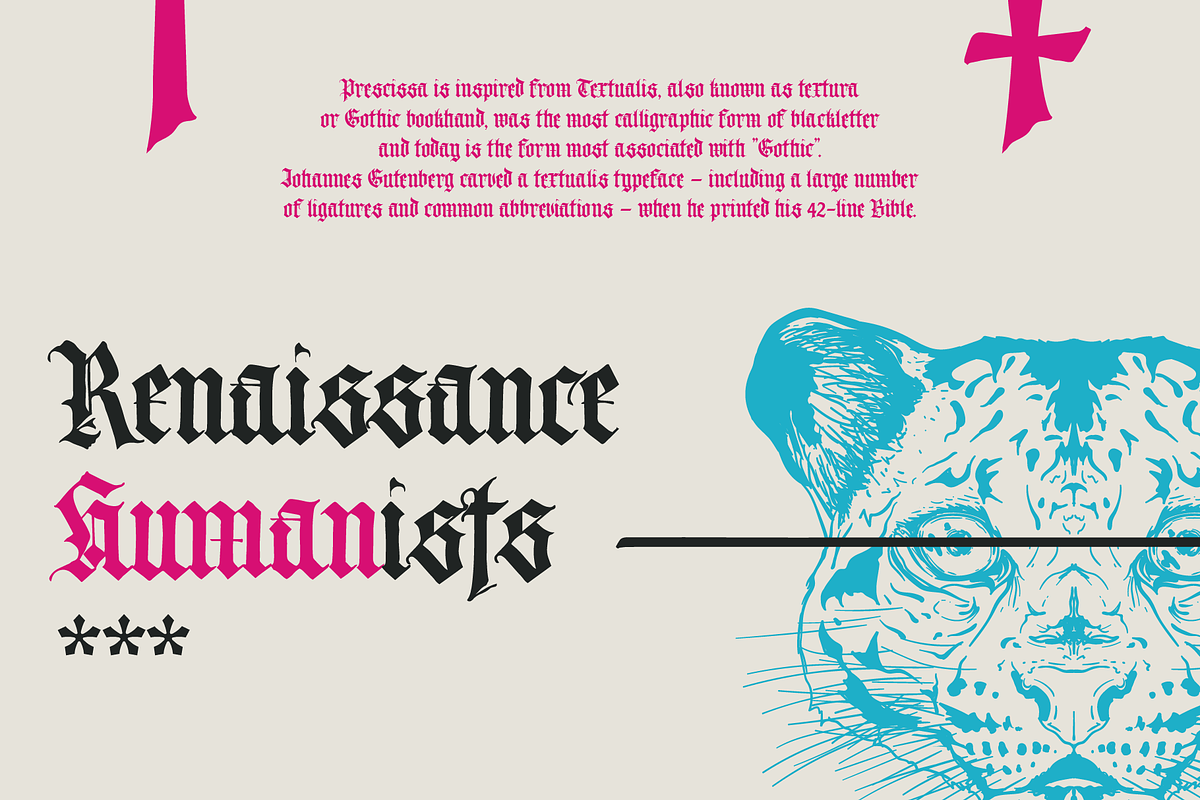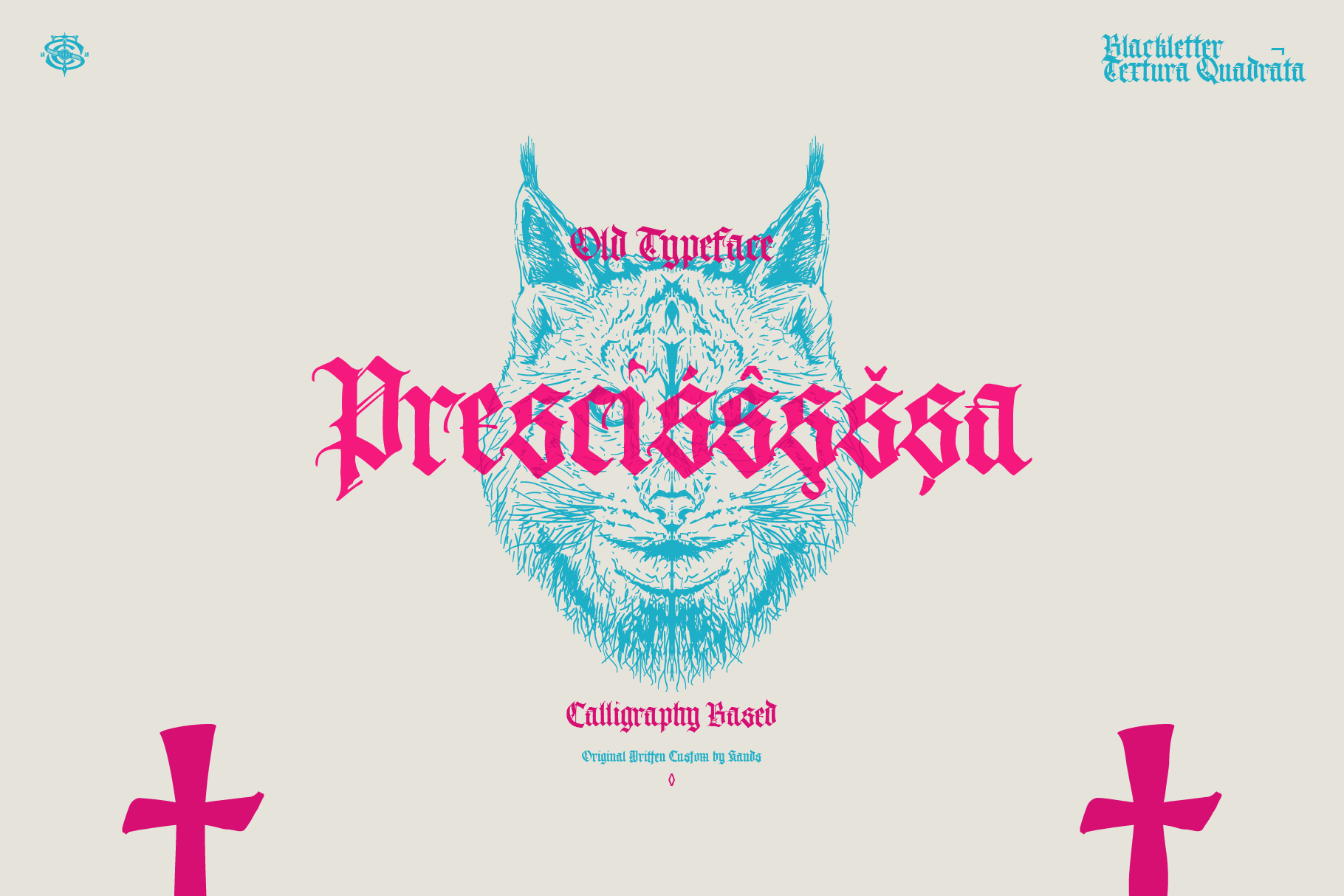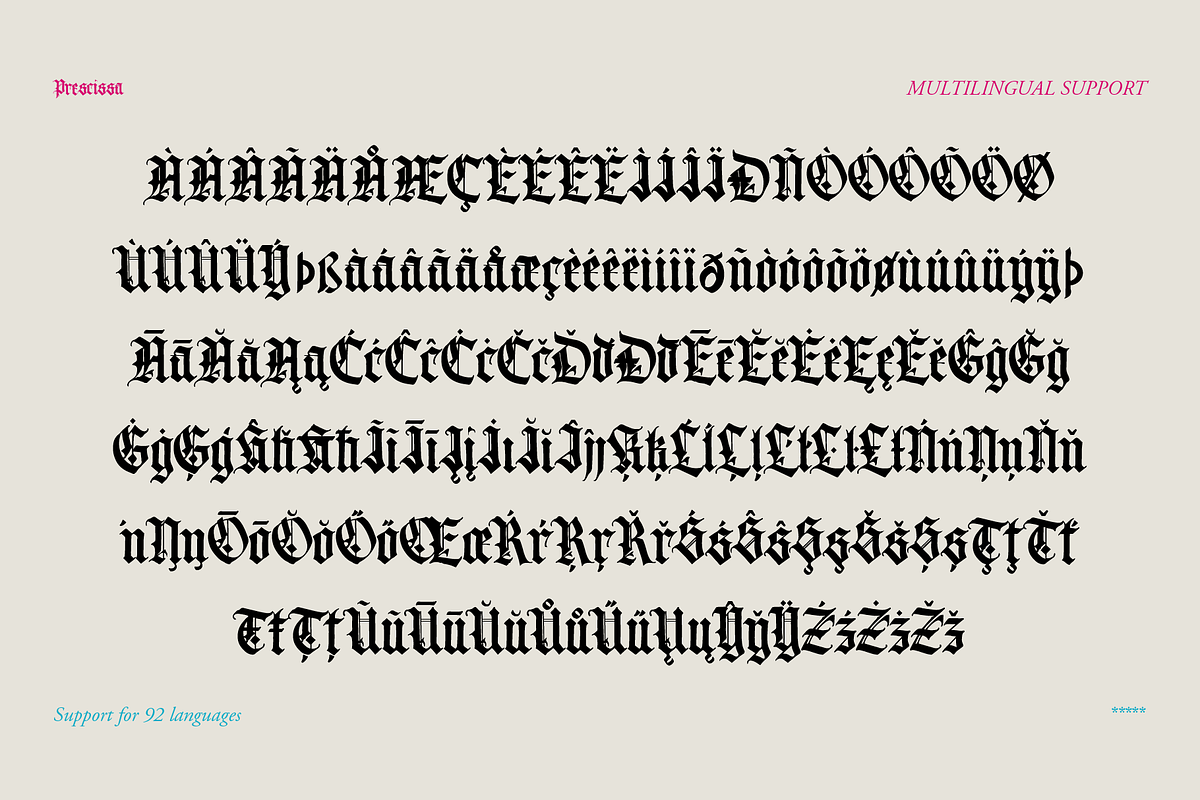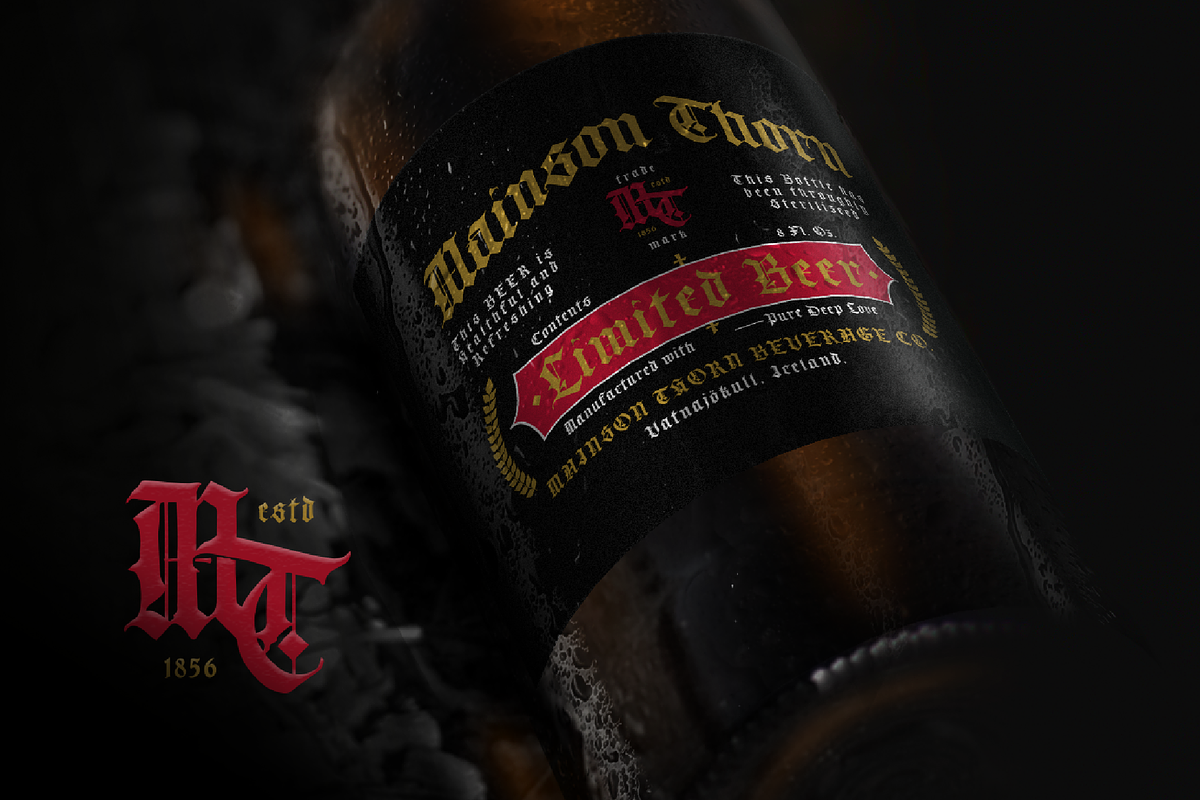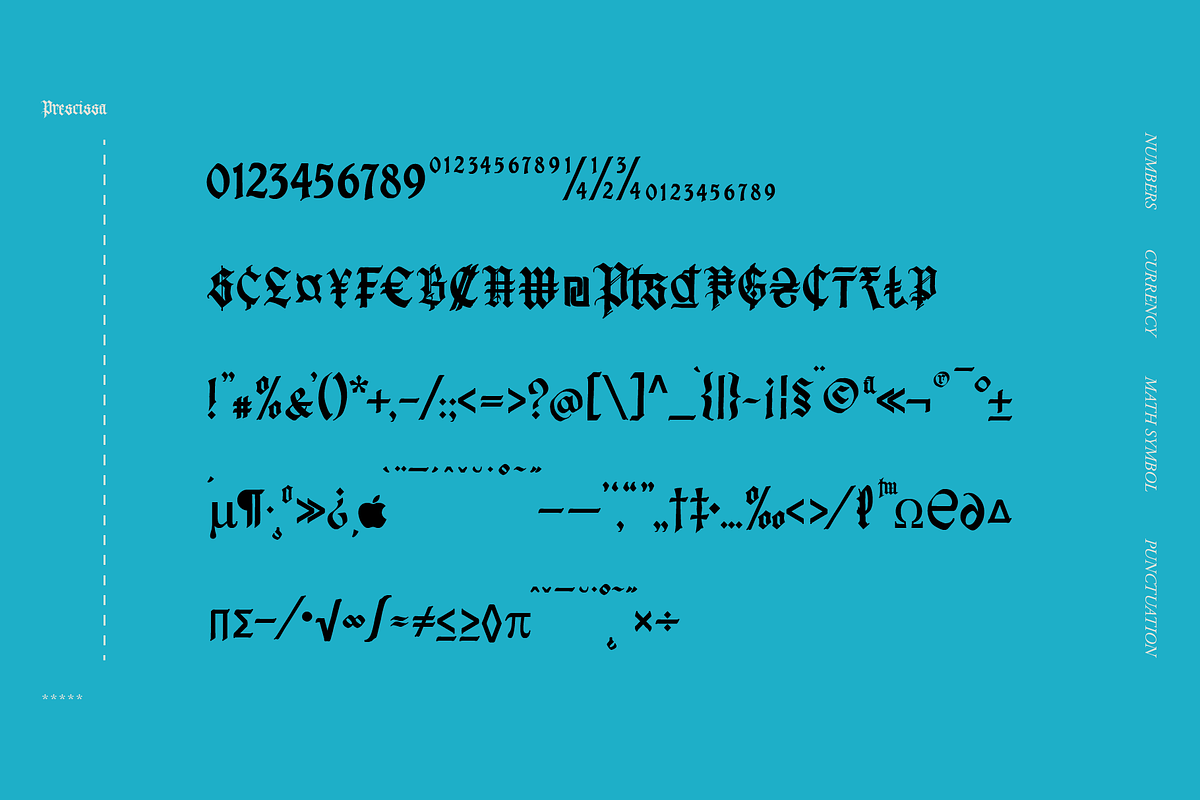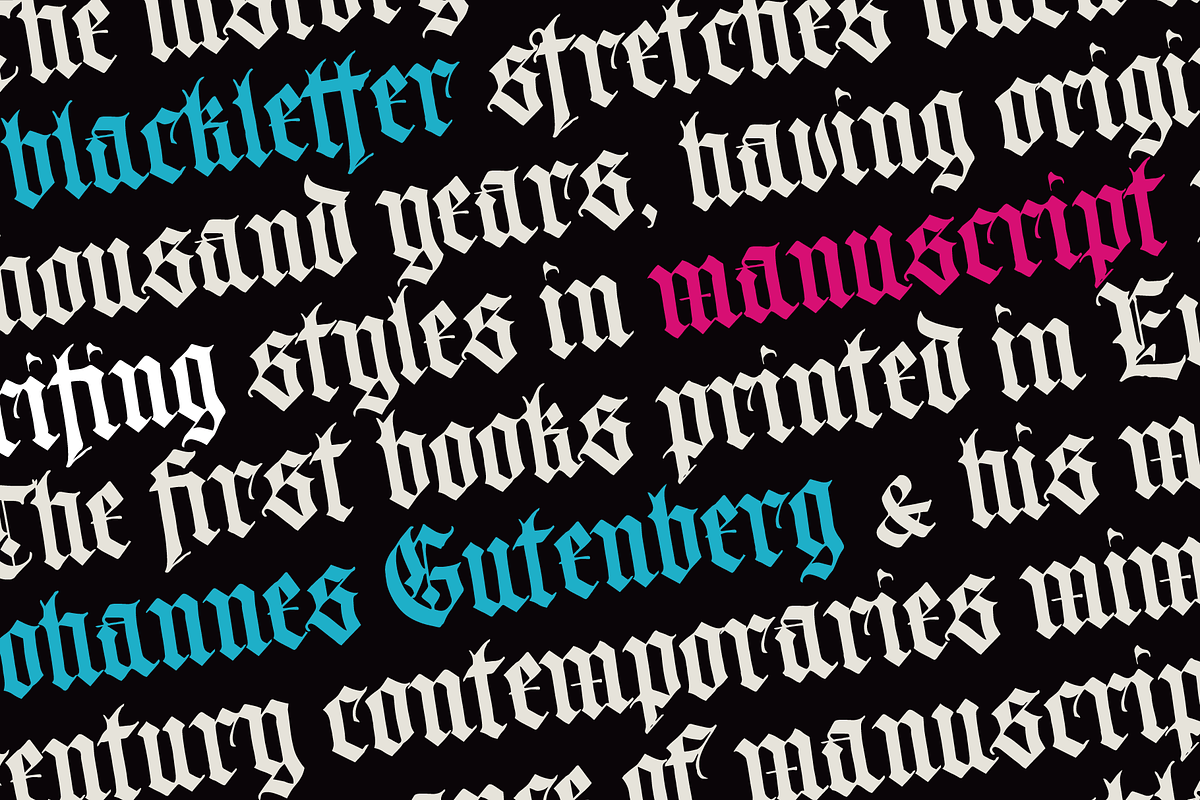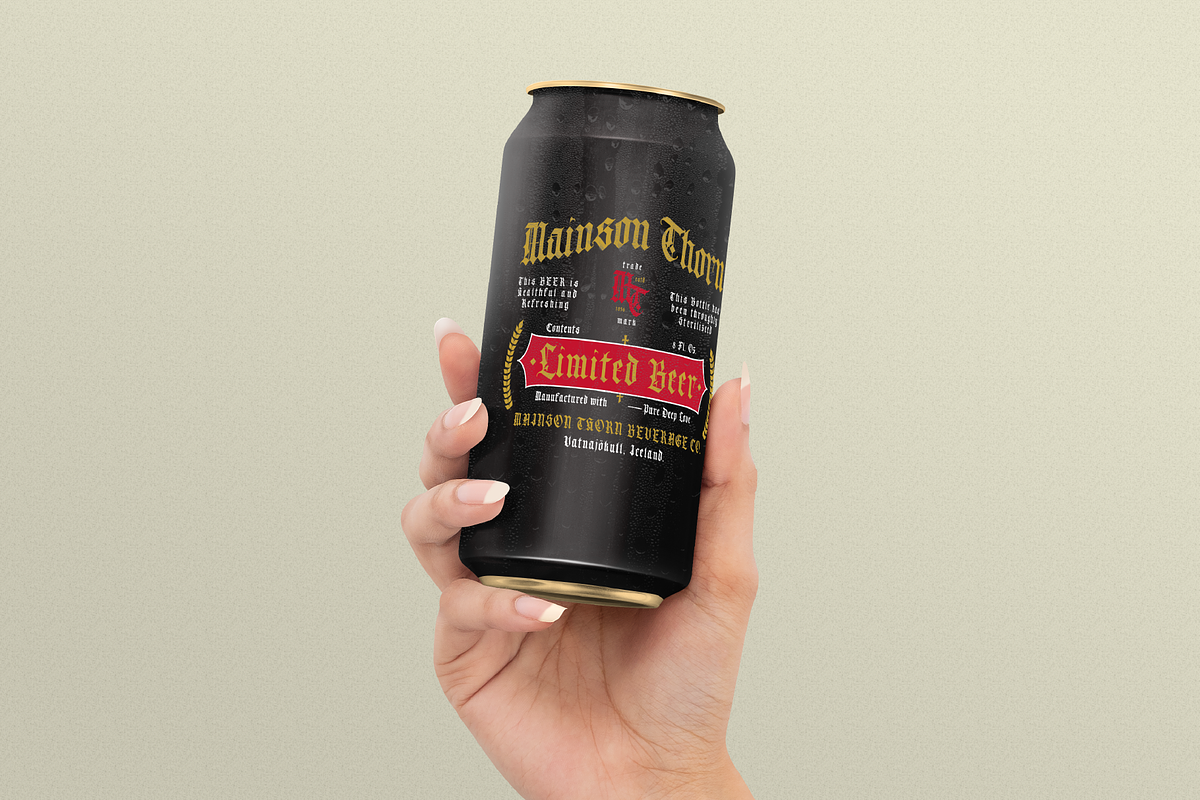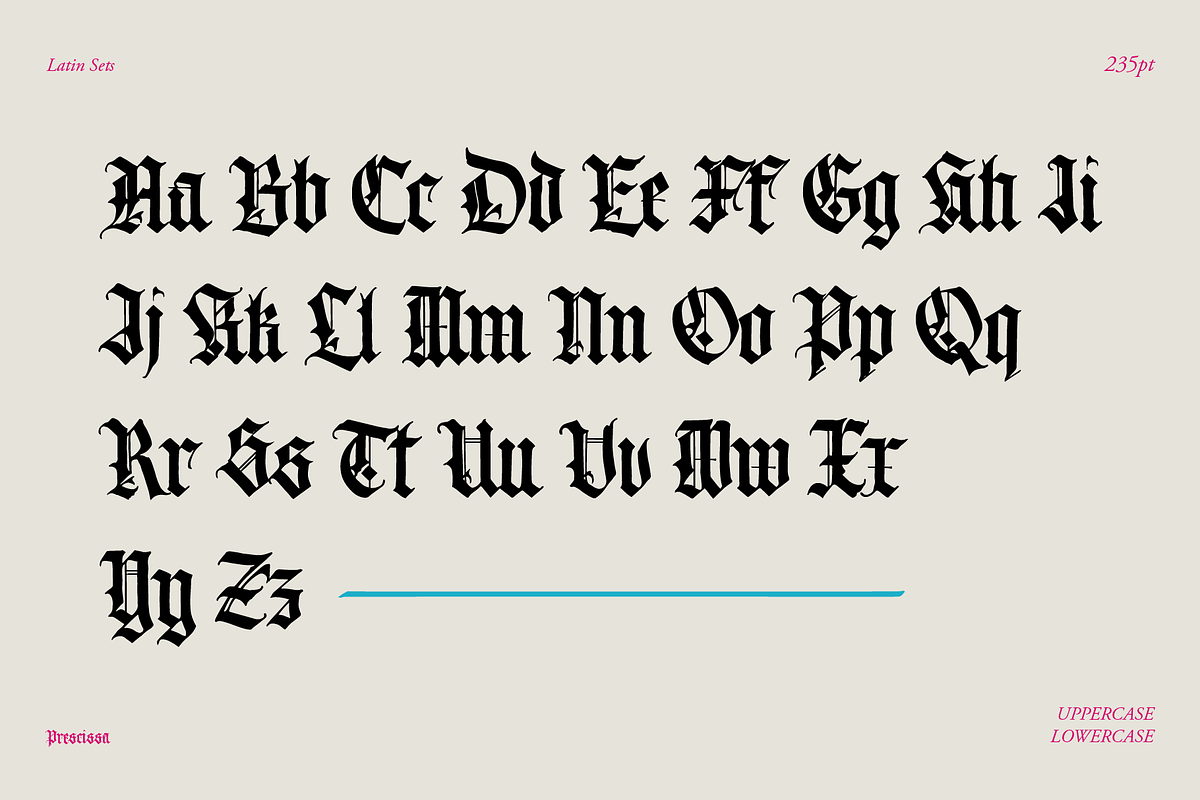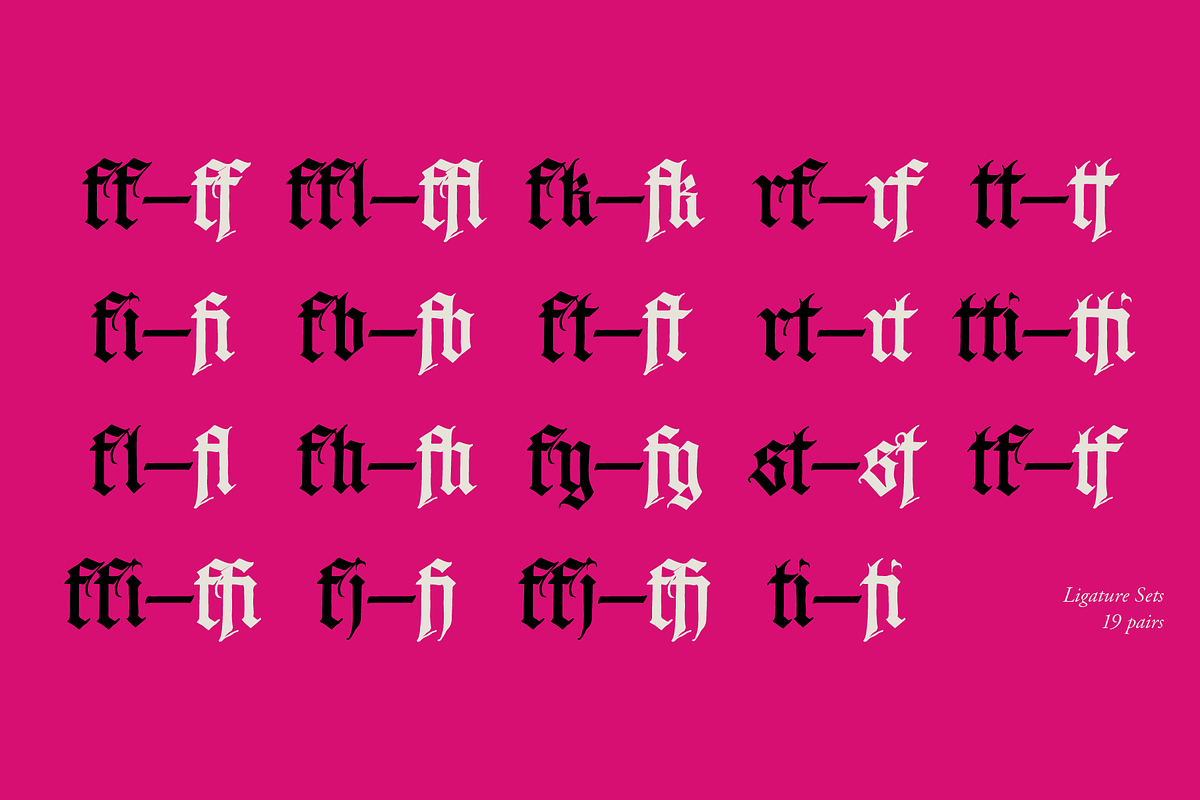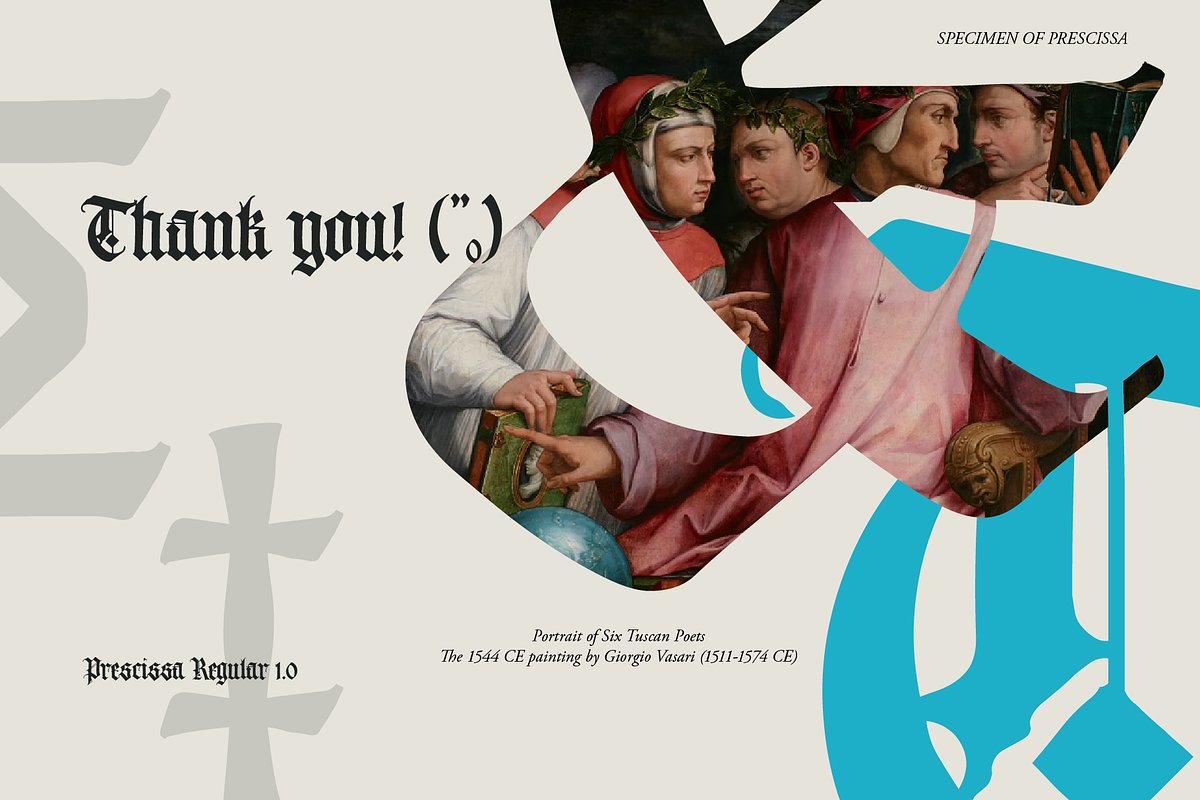
Prescissa Blackletter Typeface
Prescissa is inspired by Textualis, also known as textura or Gothic bookhand, which was the most calligraphic form of blackletter, and today is the form most associated with “Gothic”.
Written manually by hands, and reform into clean Typeface. Natural stroke from original handwriting. It can be used for just Titles or even writing.
- Over 449 Glyphs
- 12 OpenType features